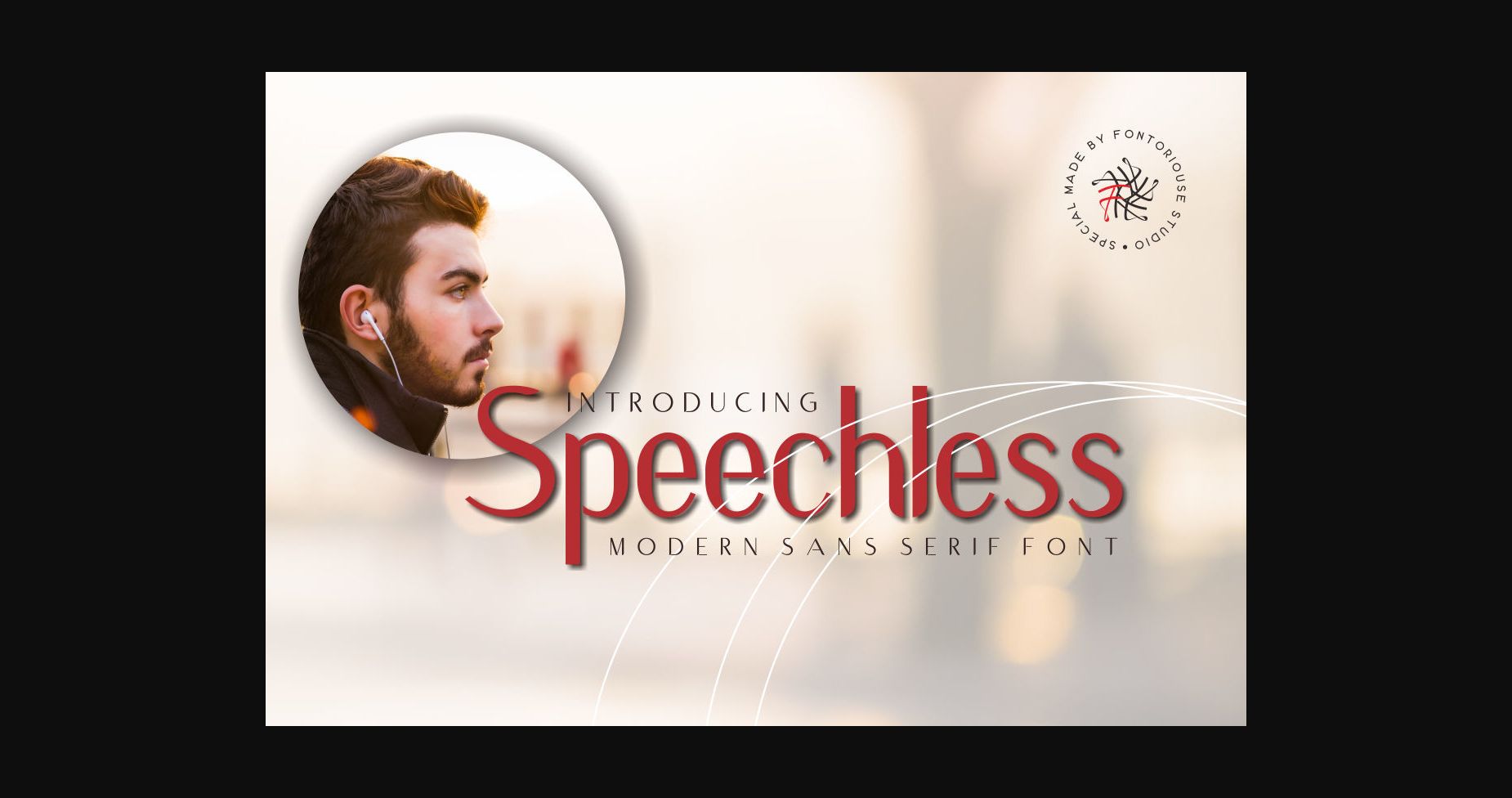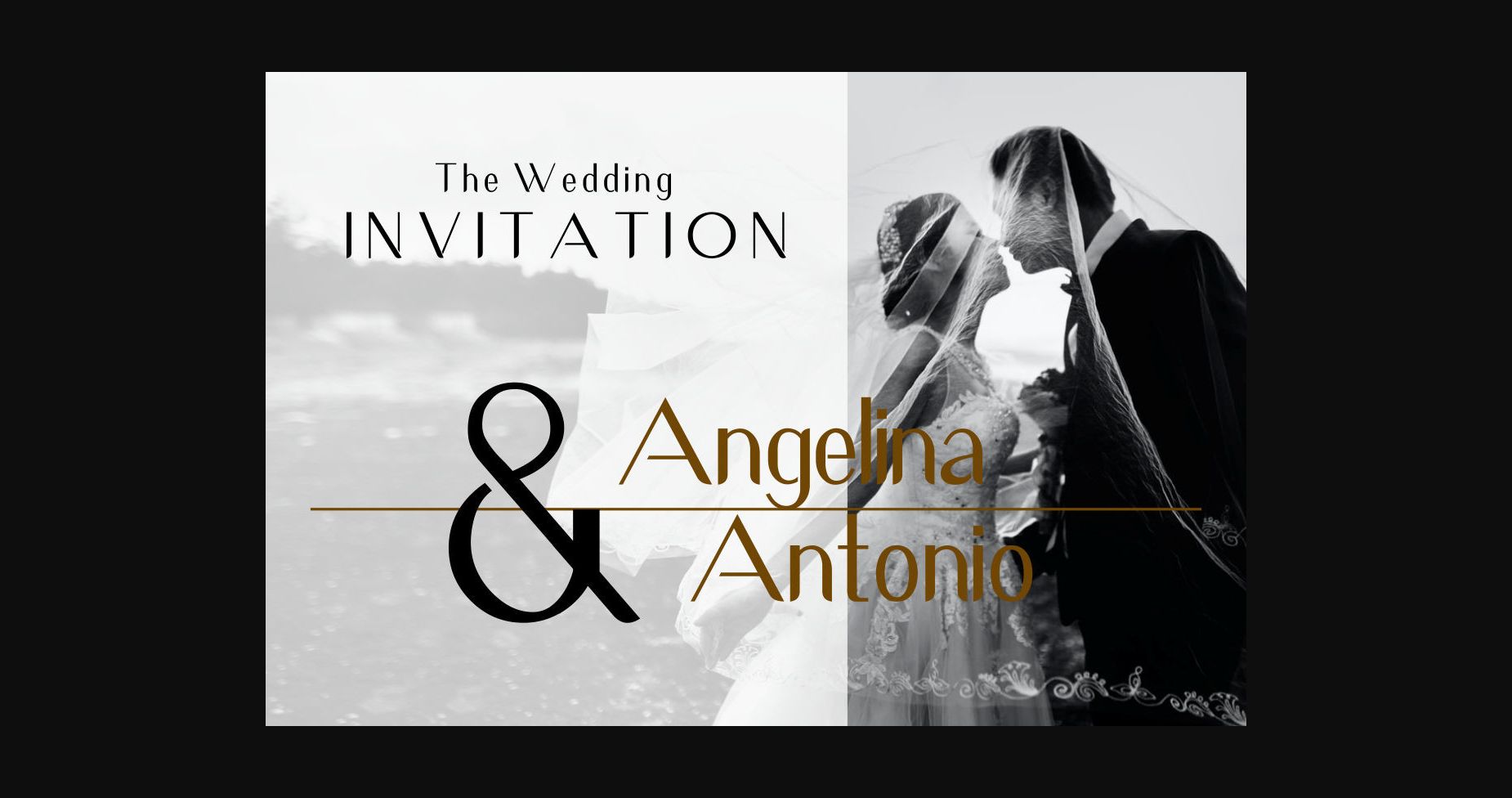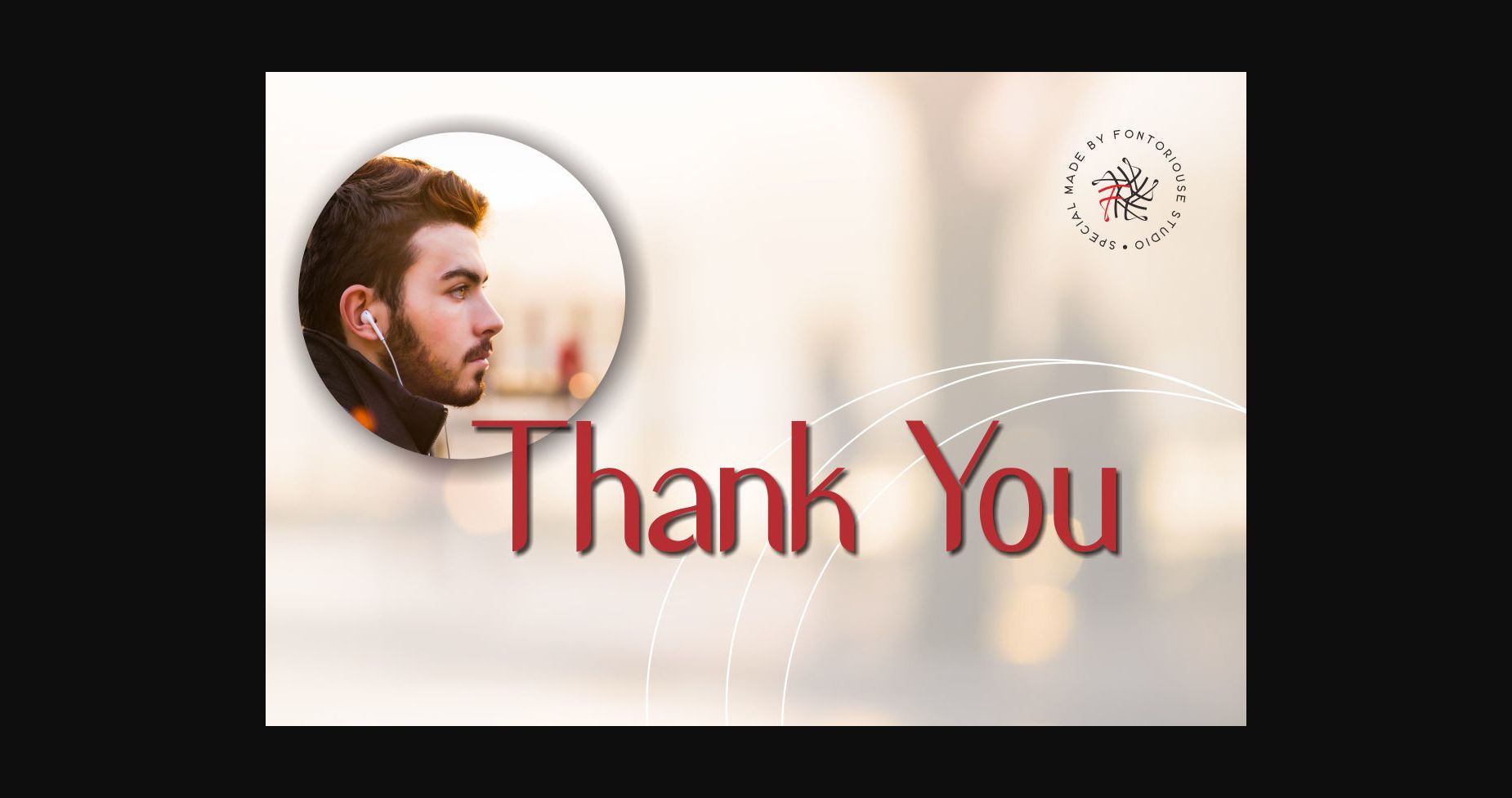
About Speechless Font
Speechless is a beautiful sans serif font that is the answer you are looking for in terms of designing your projects. It works great for sports logos, invitations, t-shirt designs, and many more. Add it to your design, and it will make it more assertive and sporty.